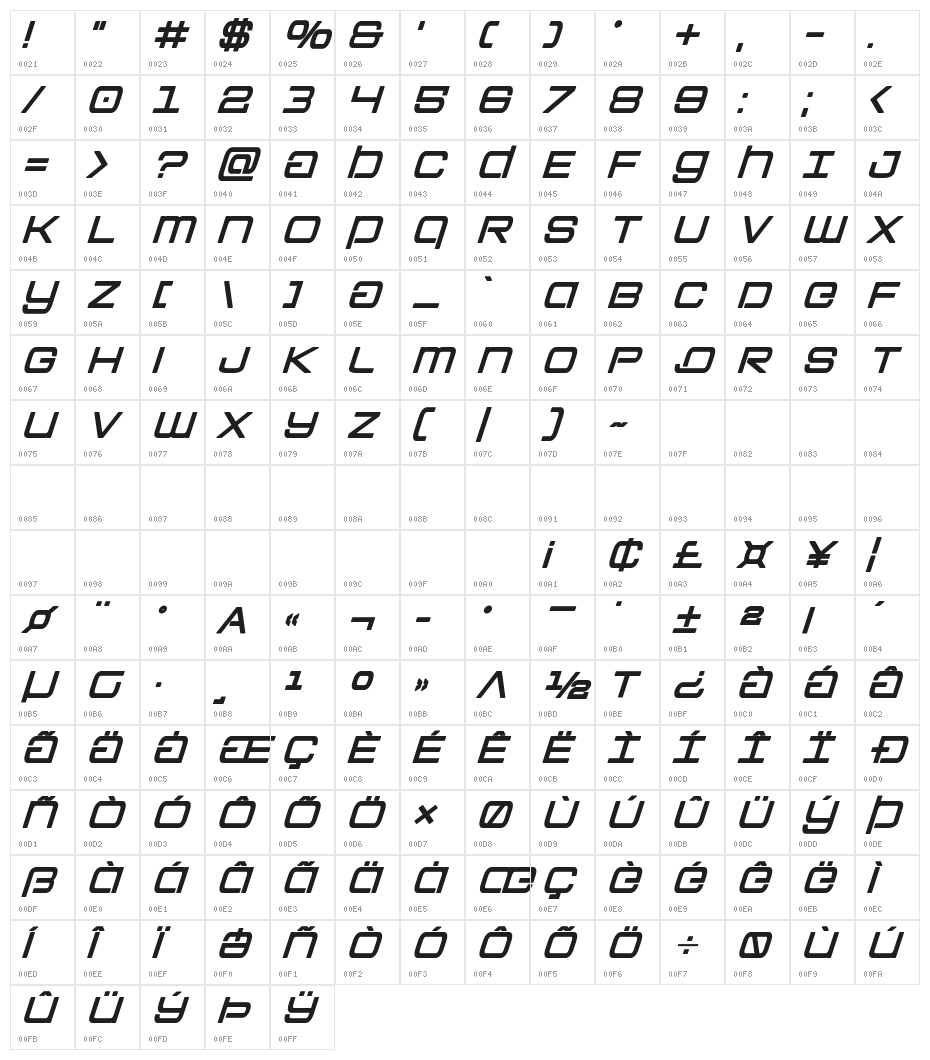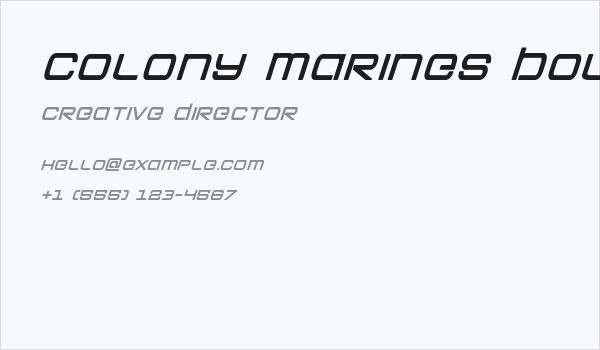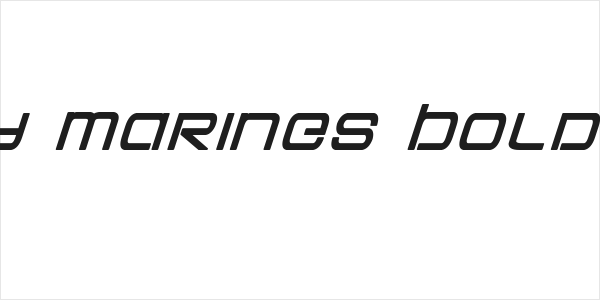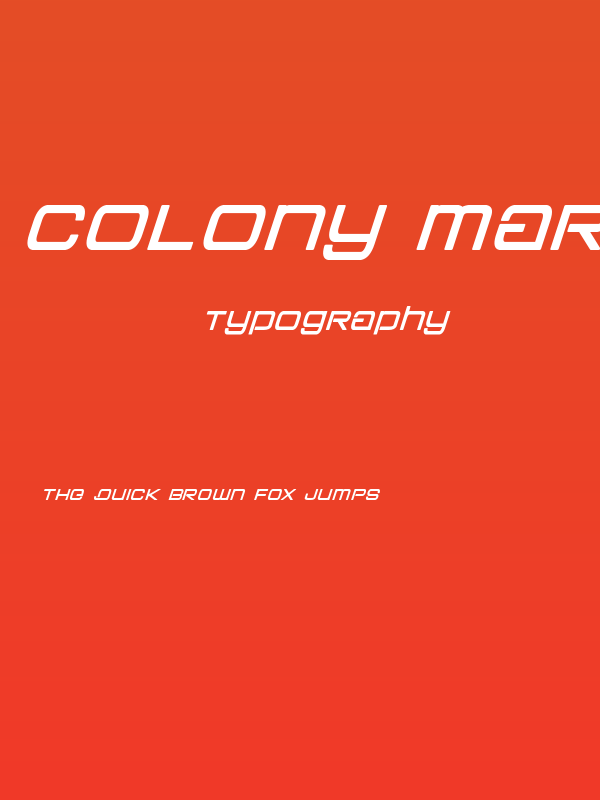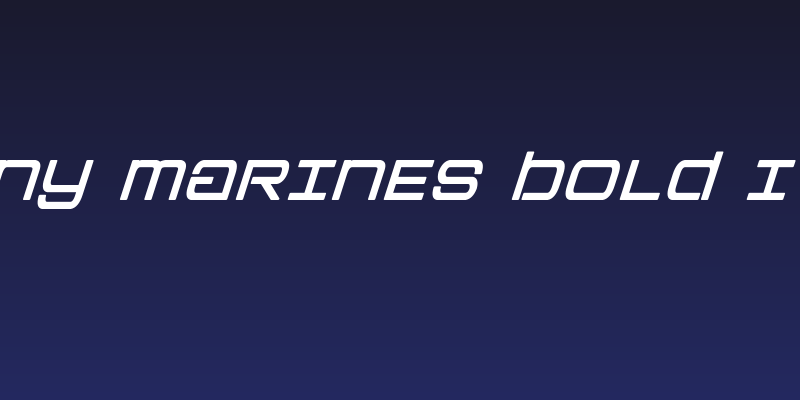
Colony Marines Bold Italic Font
Colony Marines Bold Italic Description
This font features a bold and italicized style with a futuristic and geometric design. The characters are slightly slanted, giving a sense of motion and speed. The strokes are consistent in thickness, providing a uniform appearance. The letters have a squared-off look with rounded edges, creating a modern and sleek aesthetic. The numbers and special characters follow the same design principles, ensuring cohesion across all glyphs. This font is highly legible and stands out due to its unique style.
Use CaseHeadlines, Logos, Branding
Proposed ProjectsIdeal for sci-fi themed projects, technology branding, video game titles, and modern advertising.